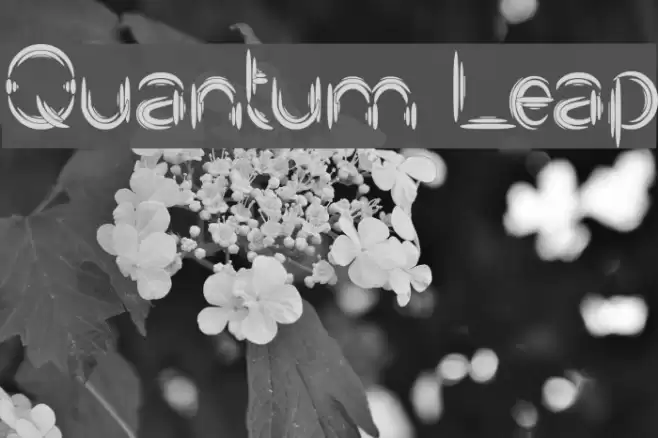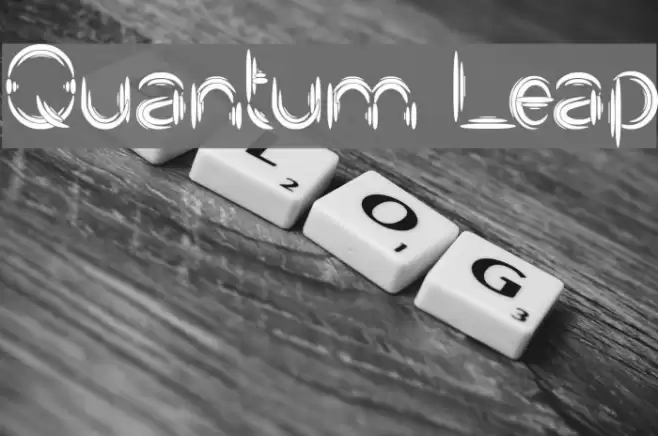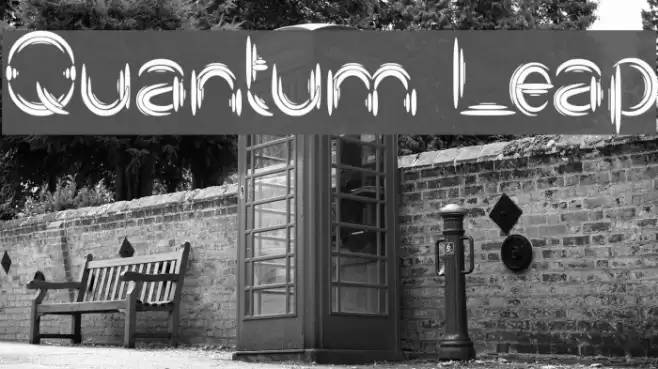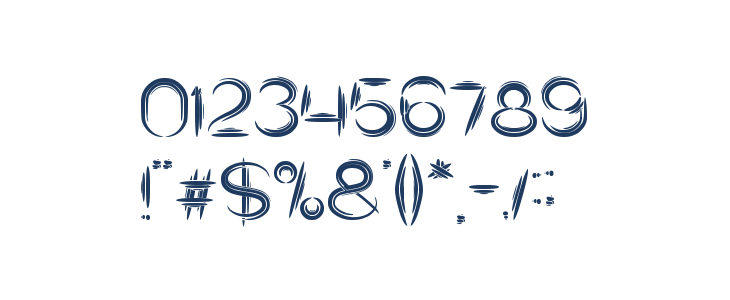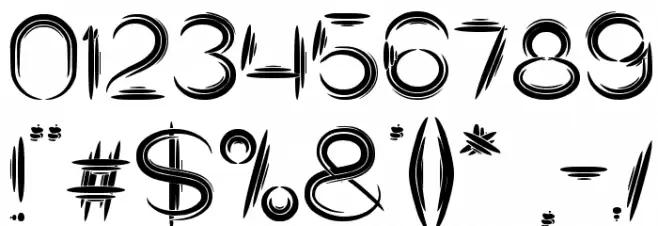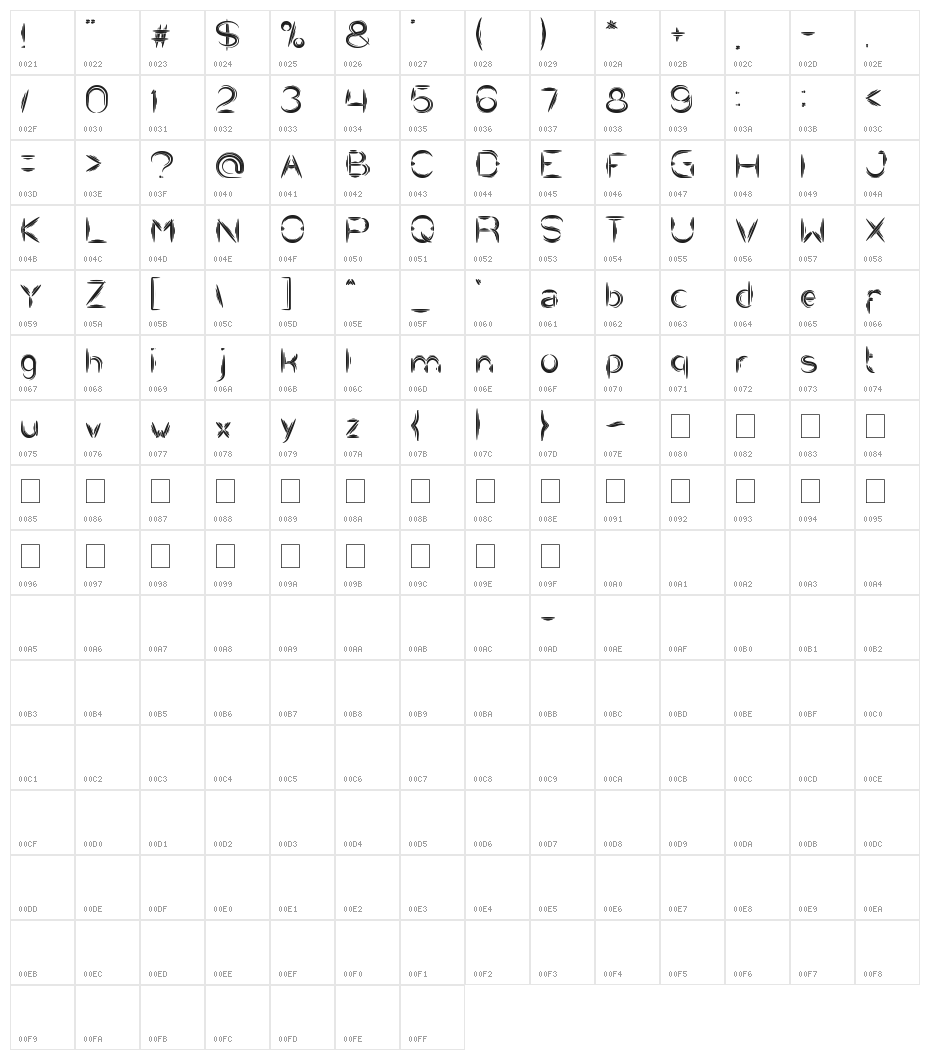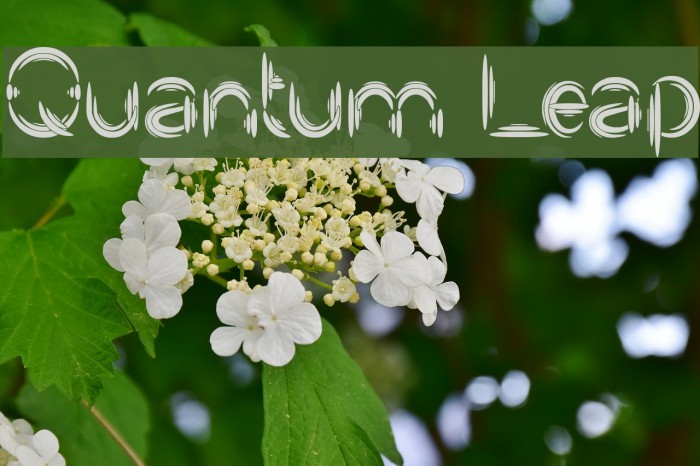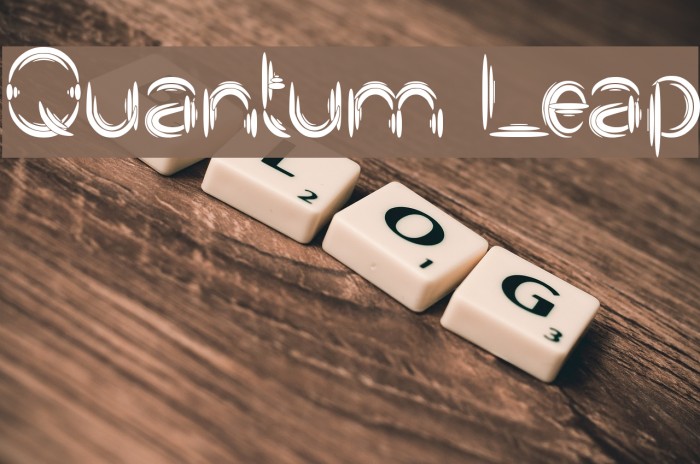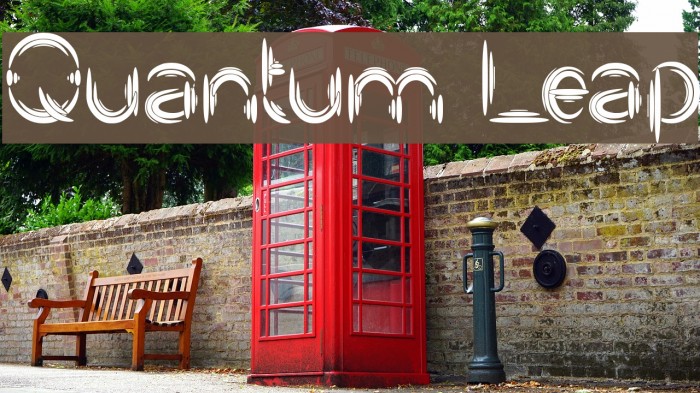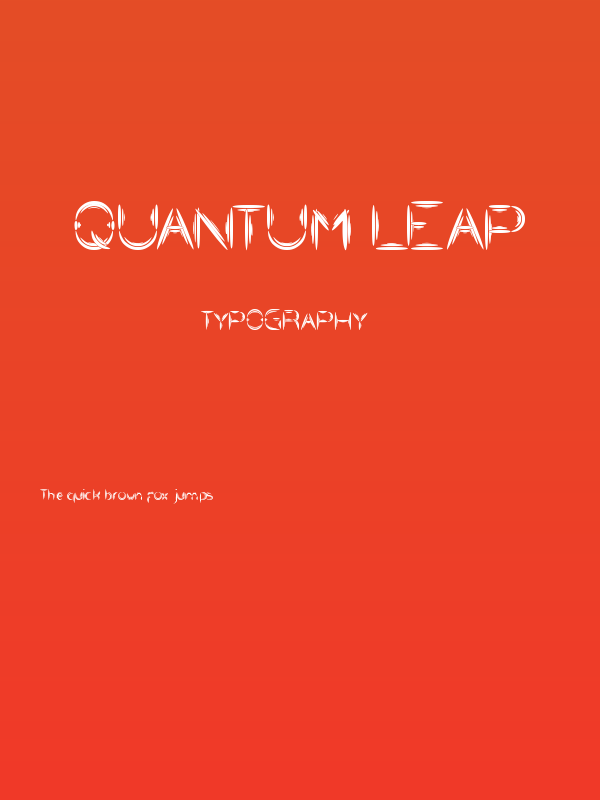
Quantum Leap Font
Quantum Leap Description
This font features a dynamic and futuristic design, characterized by its unique, fragmented strokes that create a sense of movement and energy. Each character is composed of multiple lines that appear to be in motion, giving the font a distinctive, cutting-edge appearance. The uppercase and lowercase letters maintain a consistent style, with rounded edges and a slightly condensed form. The numerals and special characters follow the same design principles, ensuring a cohesive look across all elements. This font's bold and innovative style makes it stand out, perfect for projects that require a modern and eye-catching aesthetic.
A dynamic, futuristic font with fragmented strokes and a sense of movement from Uncategorized fonts.
- Proposed Projects: Ideal for sci-fi themed designs, technology branding, video game titles, and modern advertising.